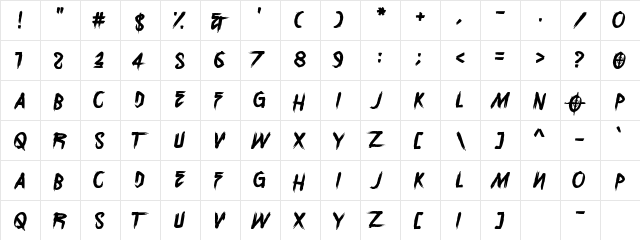
Overdrive Sunset Regular
| Designer | Andrew McCluskey |
Design Context for Overdrive Sunset Typeface
Overdrive Sunset is a composed and adaptable typeface that performs quietly and consistently across a wide range of design contexts.